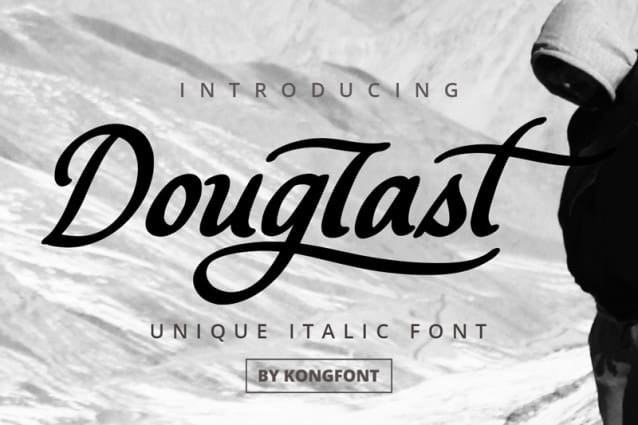
Douglast Script Font
Douglast Script Font is one of the cool fonts with a beautiful appearance and many uses. This font is the right choice if you are looking for digital fonts or print fonts. You can see how the characteristics of this simple and charismatic font are very adorable to the eyes of anyone who reads it. Douglast Script -Modern Script Font is one of those aesthetic fonts formed from light brush strokes. This font is created with simple curves in some of the letters. On closer inspection, this font looks like a shadow that has a bold edge at the end of the font shape.
The explanation of Douglast Script – Modern Script Font characteristics above shows how this font is perfect for formal events that emphasize beauty. This font is the best wedding font that can be used for invitations, souvenirs, and writing on decorations. Douglast Modern Script Font is also one of the most suitable fonts to use for product brands such as fashion, beauty products, food, and shop signs.
Douglast Script – Modern Script Font can be used to promote a hotel or a beauty spa. This font can be used as a digital font or a print font. Douglast Modern Script Font is an eligible font. This font is built with simplicity, elegance, and a strong aesthetic in everything that goes with it. This impression arises from how beautiful this font looks and its characteristics.